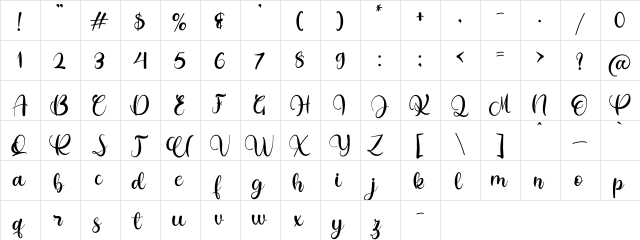
Summer Tropical Personal Use Regular
Design Context for Summer Tropical Personal Use Typeface
Summer Tropical Personal Use is a composed and adaptable typeface that performs quietly and consistently across a wide range of design contexts.
Pro Tip: Use Summer Tropical Personal Use in both headline and body roles to test its range before committing to a single application.